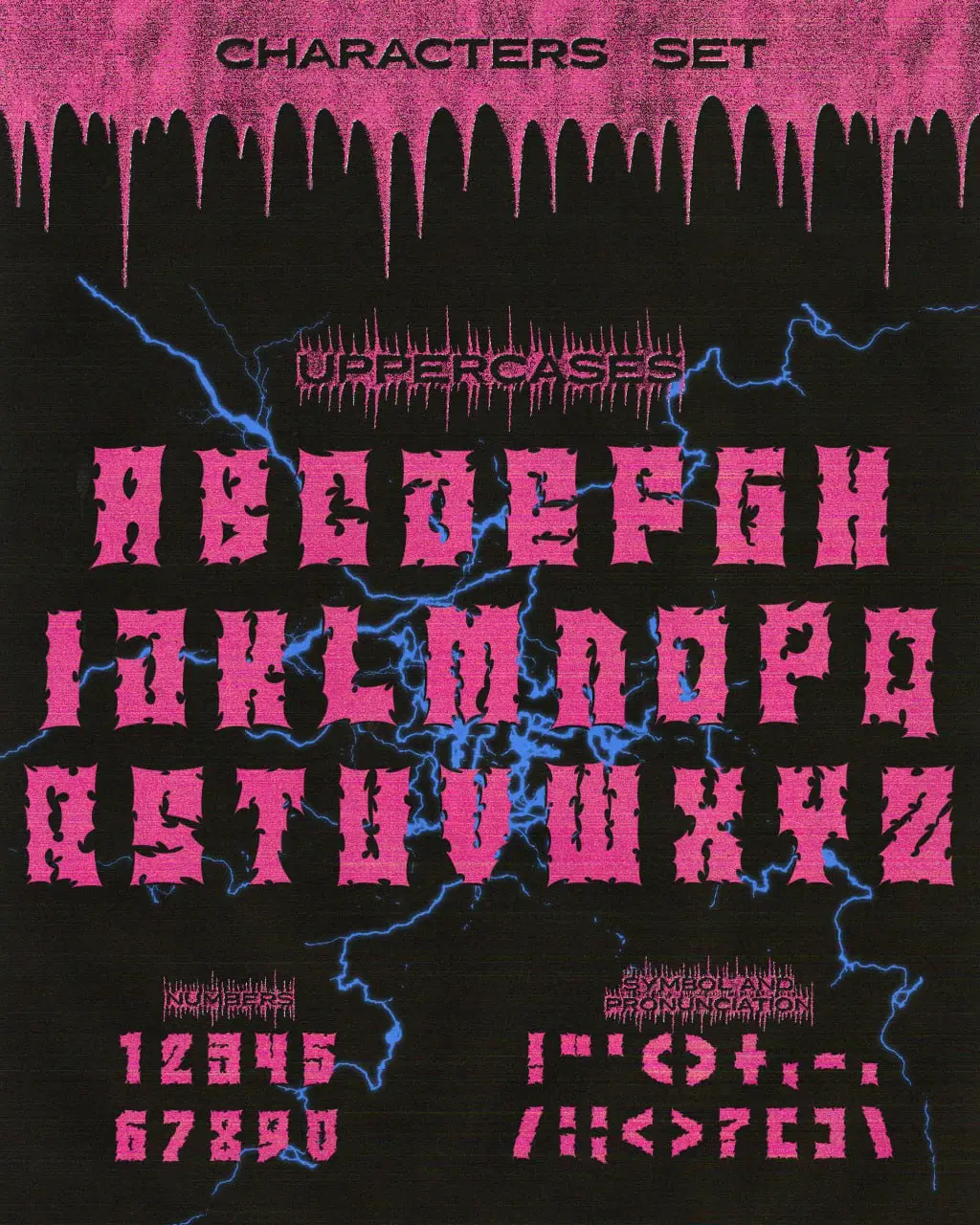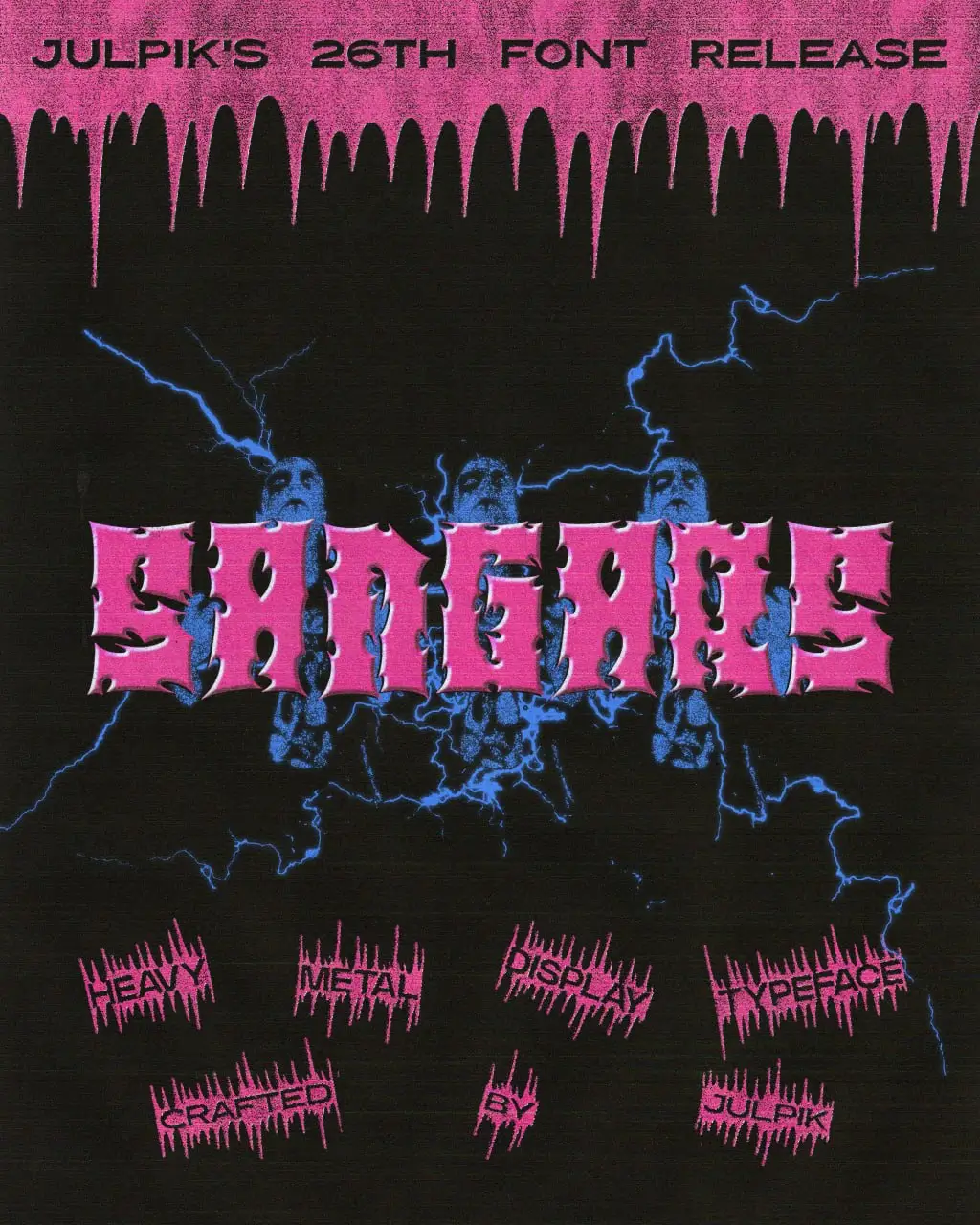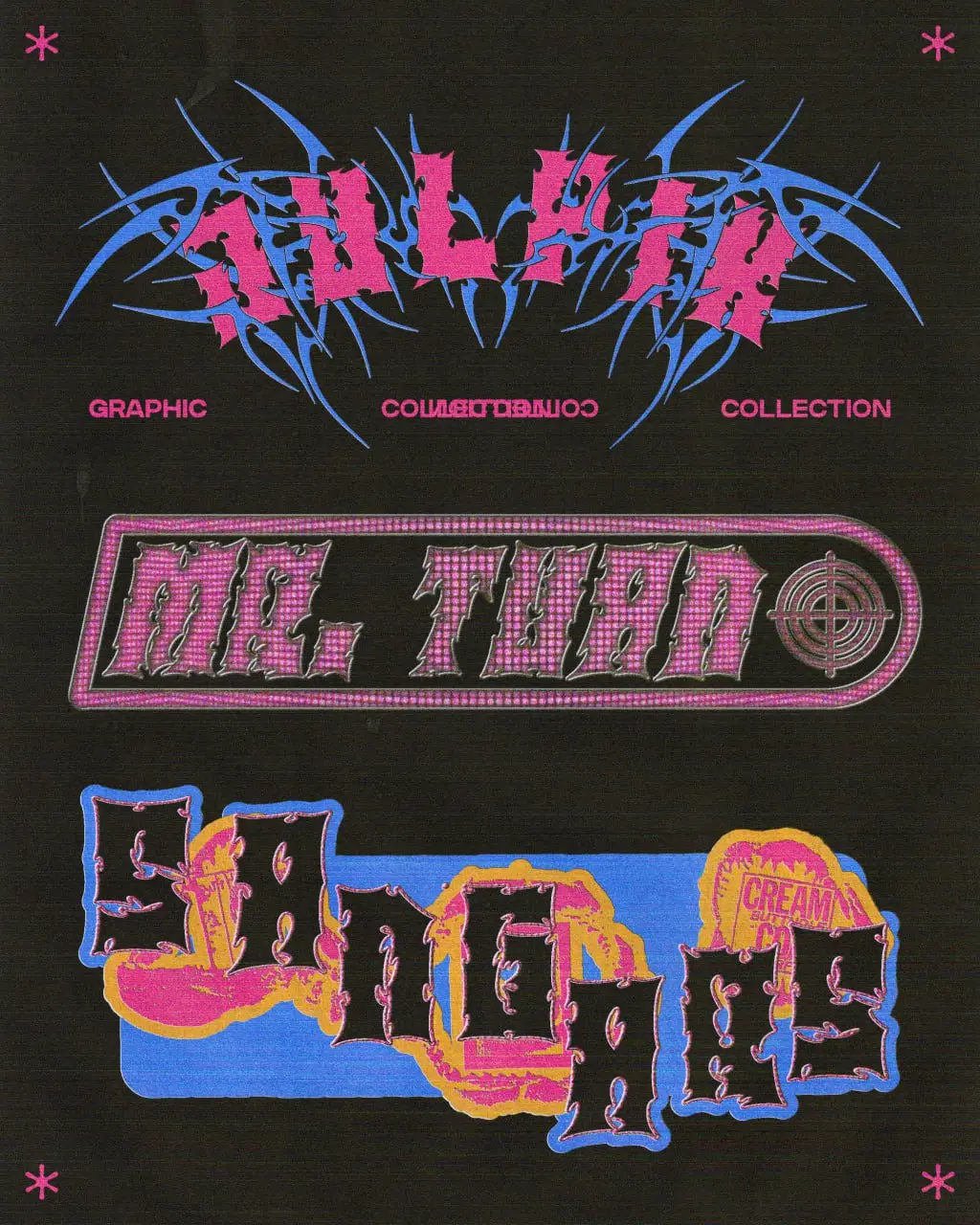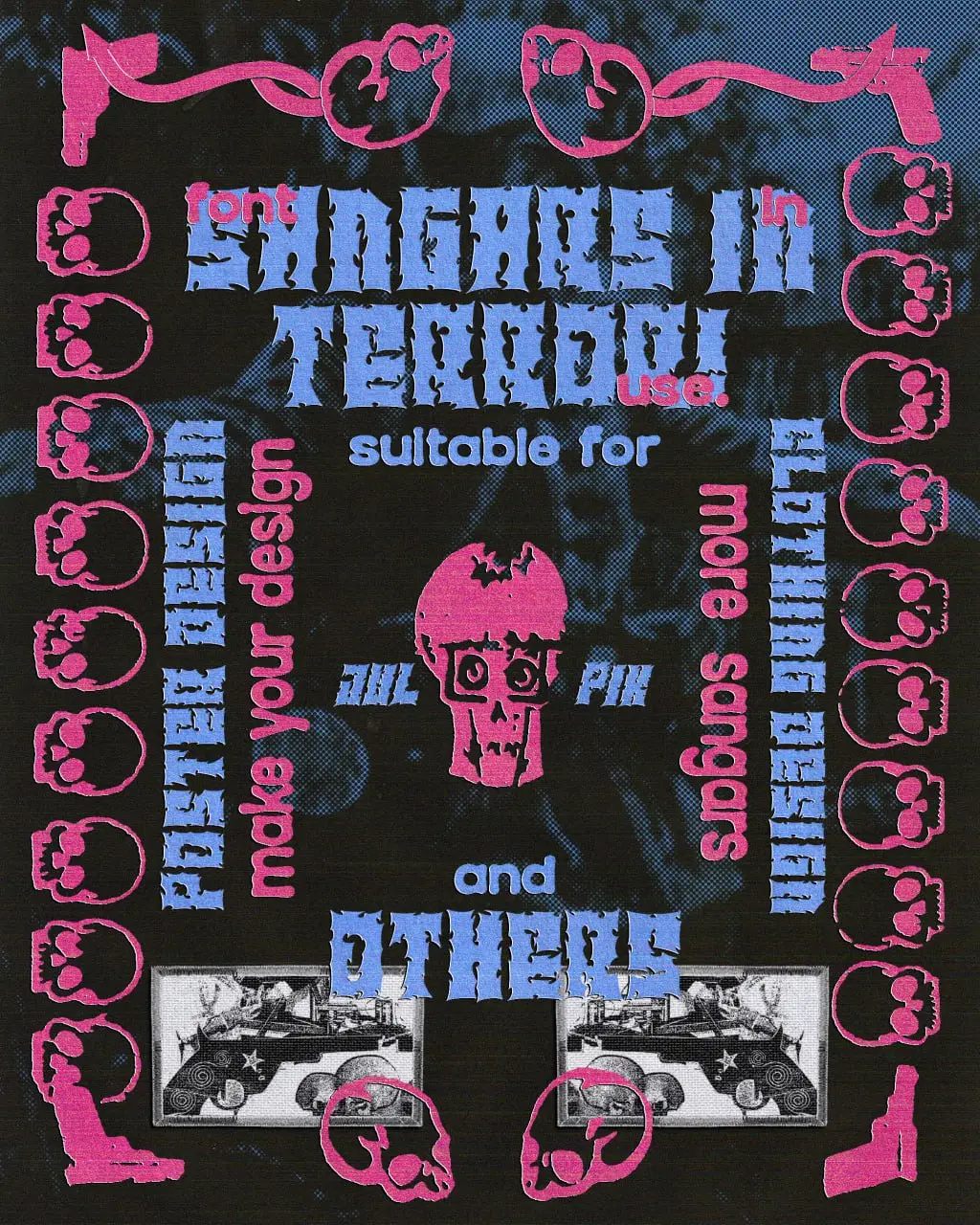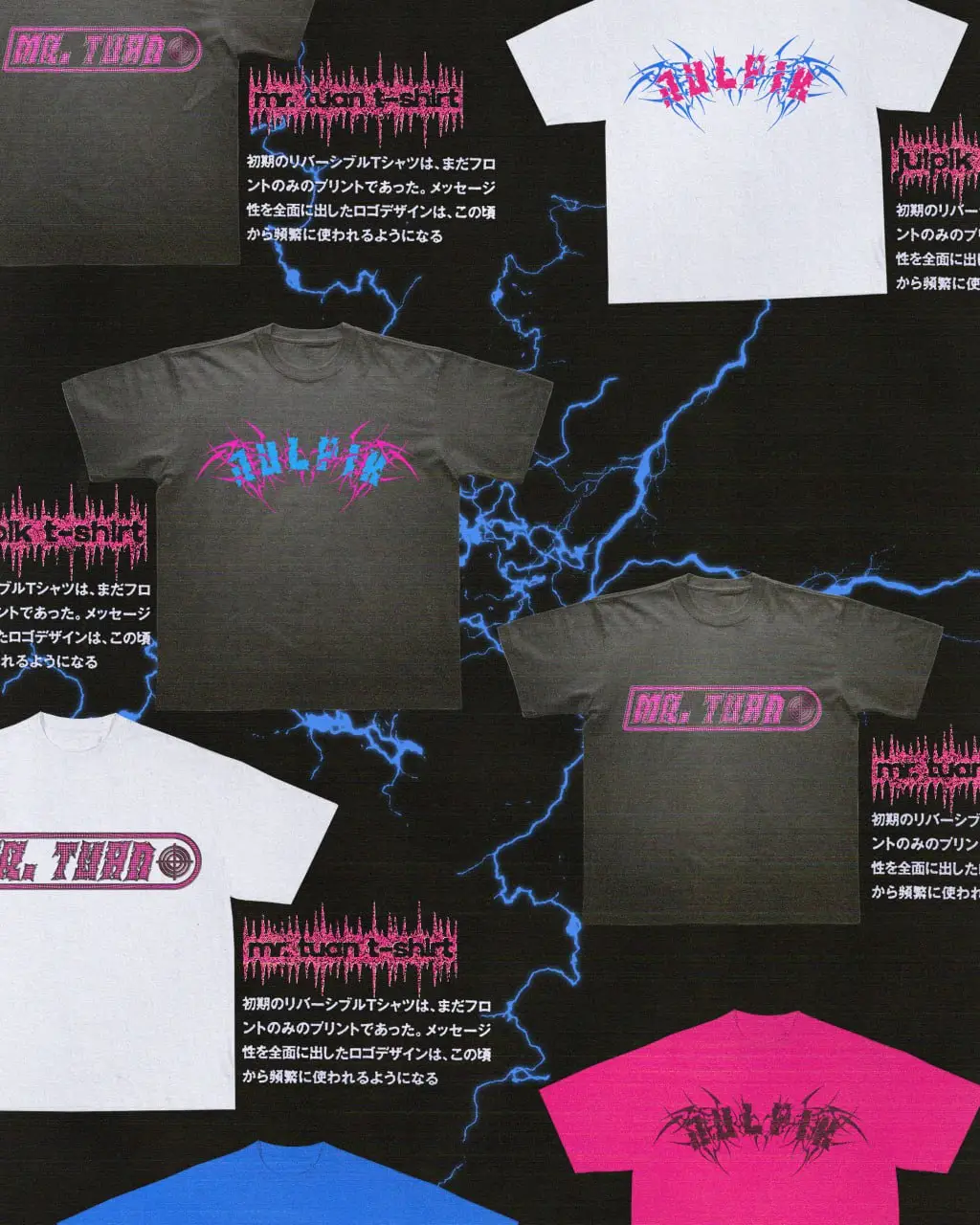
The Sangars Heavy Metal Font by Julpik is a bold and striking typeface designed for those who want to make a statement. This font features a unique heavy metal style that is perfect for branding, logos, and graphic design projects that require a strong visual impact.
- Distinctive heavy metal design
- Uppercase and lowercase letters
- Numerals and punctuation included
- Ideal for album covers, posters, and merchandise
- Use in web design for impactful headings
- Perfect for any project that needs a bold and edgy look